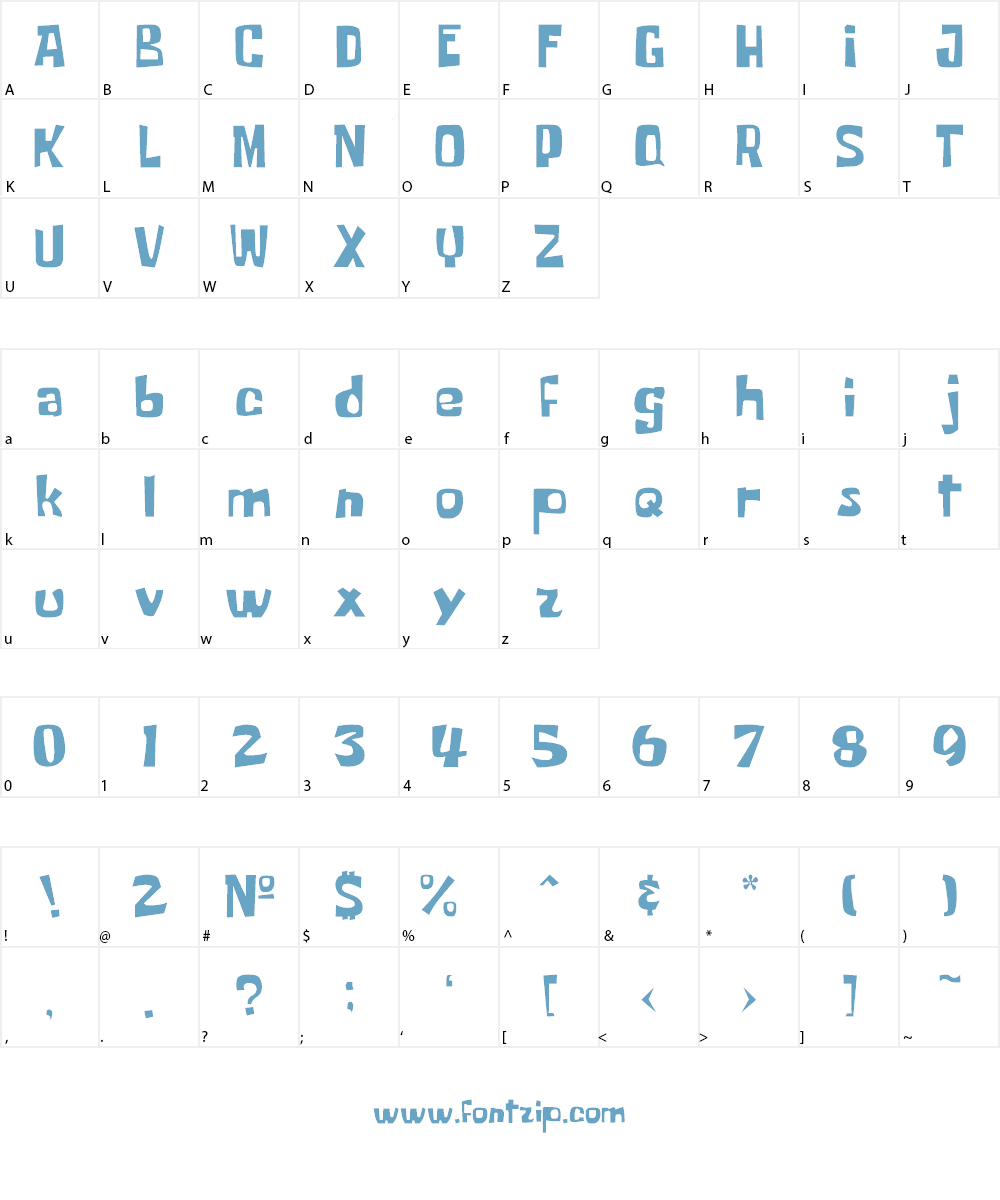
Some Time Later is a recreation of the classic SpongeBob Squarepants™ typeface used in the credits, in the title cards of some episodes and most famously in the time cards.